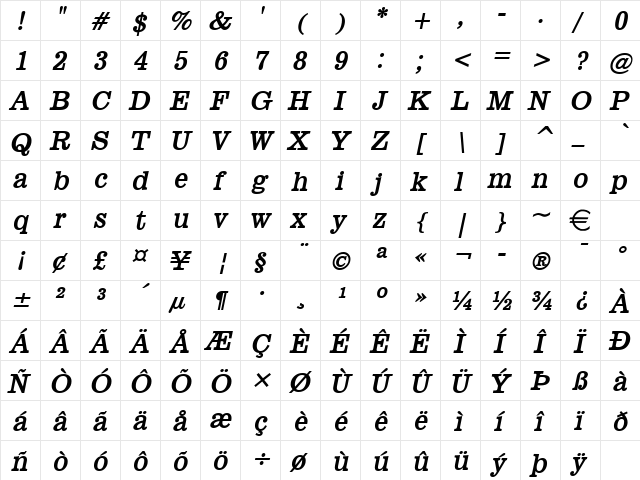
Broadcast BoldItalic
Design Context for Broadcast Typeface
Broadcast is a composed and adaptable typeface that performs quietly and consistently across a wide range of design contexts. Its italic angle brings a sense of urgency and motion to the letterforms. Its bold stroke weight gives it real presence on the page.
Pro Tip: Use Broadcast for emphasis, pull quotes, and subheadings where its slanted energy can add rhythm to the layout.